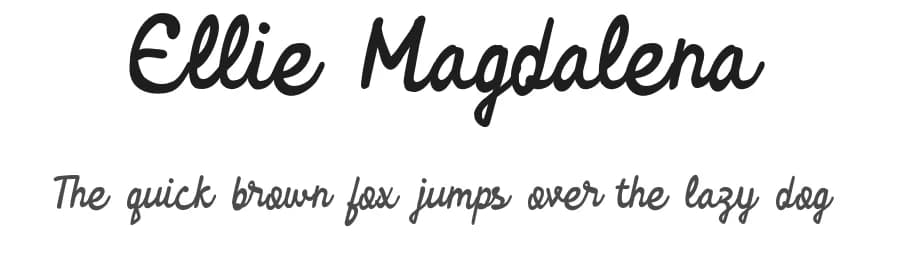
About Ellie Magdalena Font
Ellie Magdalena is a script & handwritten font designed by Linafis Studio. It includes 98 glyphs, a regular weight, OTF (CFF) format, and 104 languages. Ellie Magdalena is free to download; check the license details on this page before commercial use. Script & handwritten fonts like Ellie Magdalena work best for wedding invitations, greeting cards, signatures, and elegant branding.
Ellie Magdalena Font is a script font that shines as a display or heading face. Pair it with a clean sans-serif or serif font for body text β the contrast creates a clear hierarchy while the two styles stay balanced and easy to read.
Ellie Magdalena Font
Ellie Magdalena Font is a script handwritten typeface by Linafis Studio, ideal for logos, invitations, branding, and creative projects.